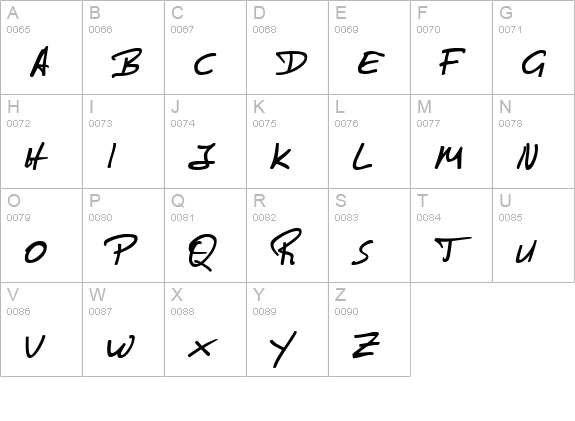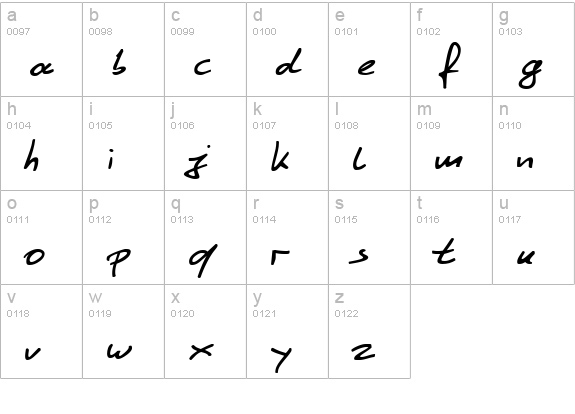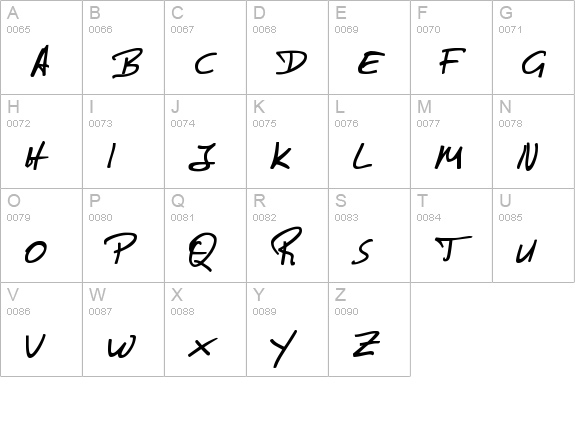
Culture Font Details
Introducing Culture font, a captivating and versatile typeface that effortlessly blends modern design with classic elegance. This unique font features clean lines and smooth curves, making it perfect for all kinds of creative projects. Whether you're designing a logo, crafting a brand identity, or creating stunning graphics, Culture font is sure to make a lasting impression. What's even better is that Culture font is completely free to download at FontsMarket.com. Yes, you read that right – this premium quality font is available at no cost, allowing you to elevate your designs without breaking the bank. So why wait? Download Culture font today and unleash your creativity with this exceptional typeface.